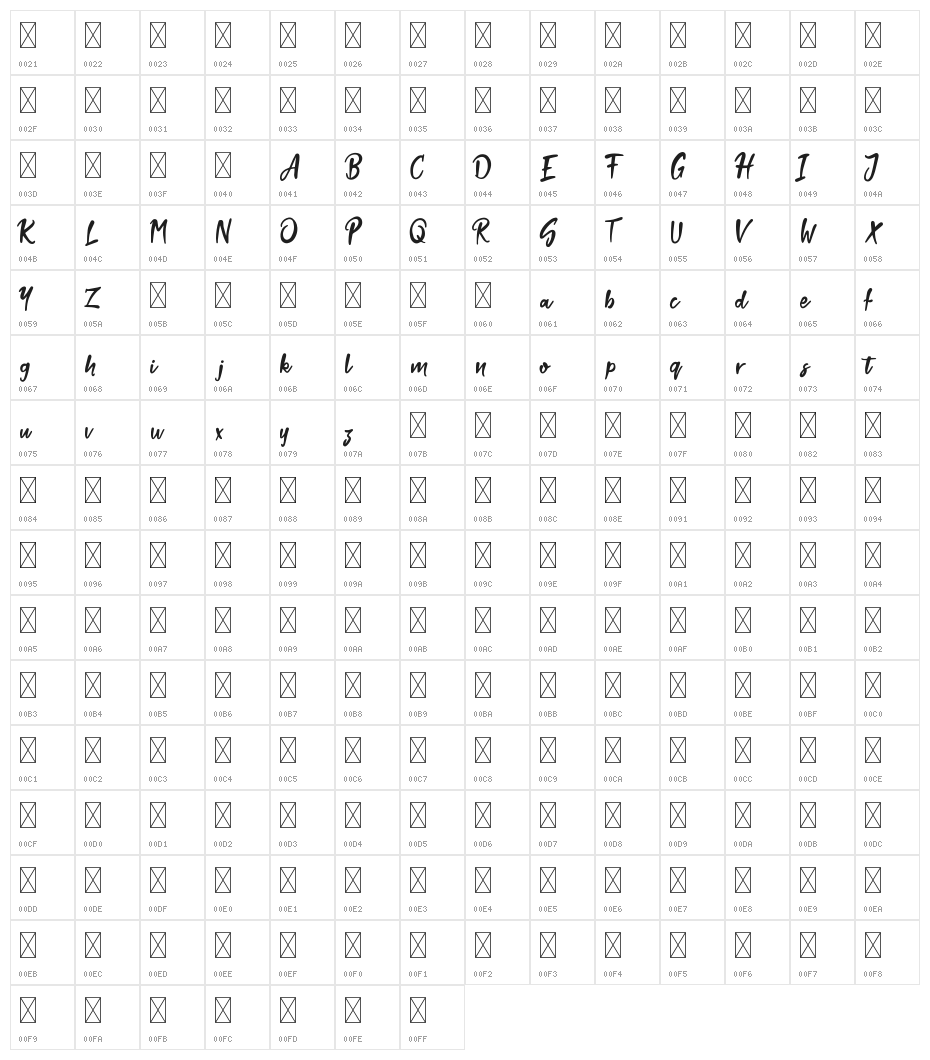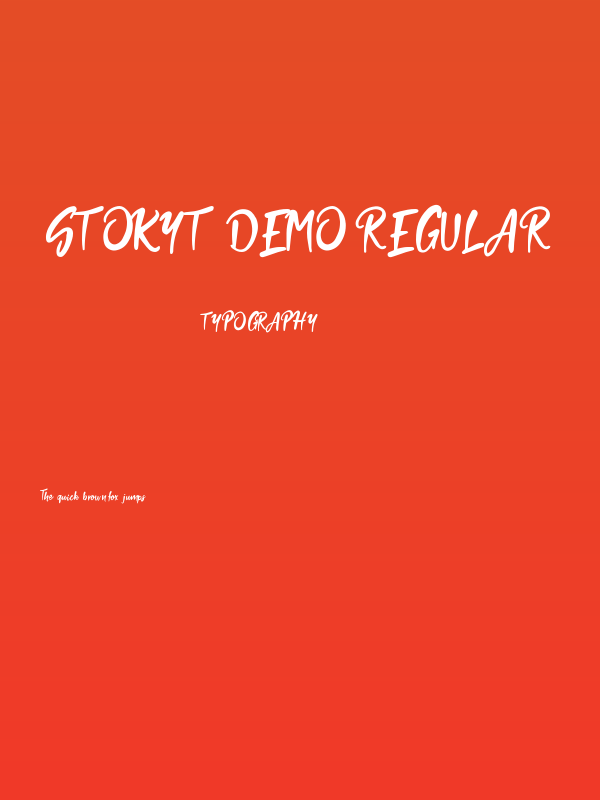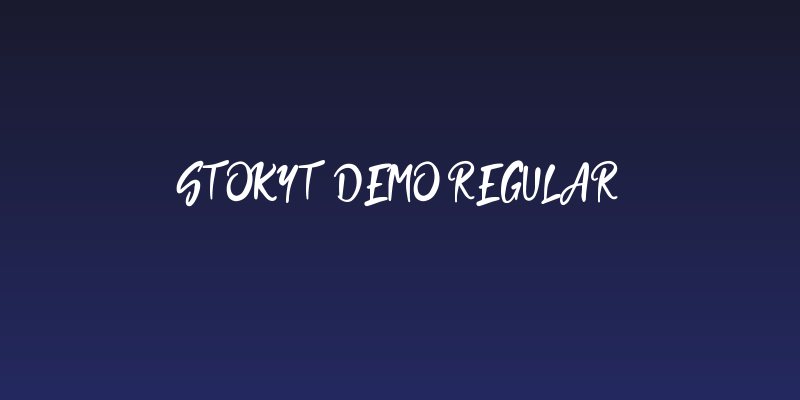
Stokyt Demo Regular Font
Stokyt Demo Regular Description
This font features a dynamic and expressive script style, characterized by its fluid and cursive letterforms. The uppercase letters exhibit a bold and sweeping design, while the lowercase letters maintain a consistent flow with a slightly more compact appearance. The strokes are thick and confident, providing a strong visual impact. The font's overall aesthetic is modern and artistic, making it suitable for creative and informal applications. The absence of special characters and numbers suggests a focus on alphabetic expression, enhancing its use in decorative and headline contexts.